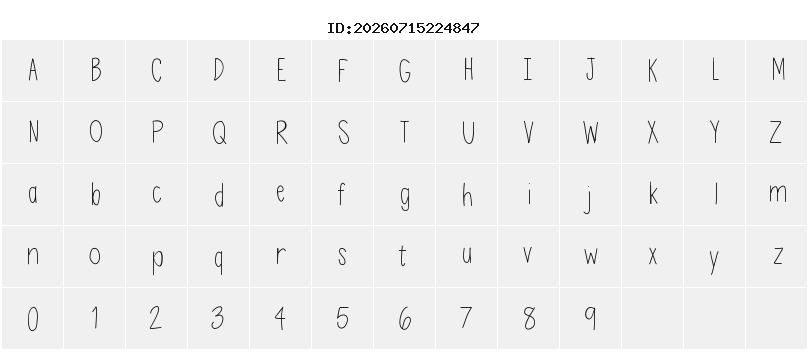
AsdfghjklLight Preview
• Font Name: AsdfghjklLight
• Font Style: Light
• Font ID: Kyliegm:AsdfghjklLight
• Full Font Name: AsdfghjklLight
• PostScript Name: AsdfghjklLight
• Character Count: 196
About AsdfghjklLight.ttf
AsdfghjklLight.ttf is a modern, elegant sans-serif font designed for ultimate readability and visual harmony. Perfect for branding, headlines, web design, and print materials.